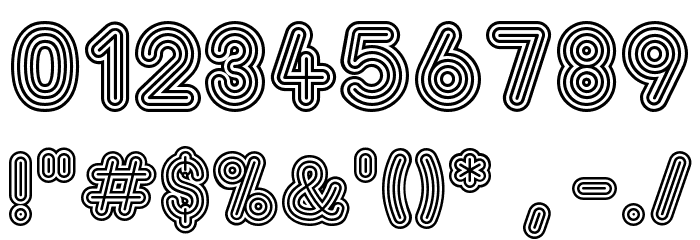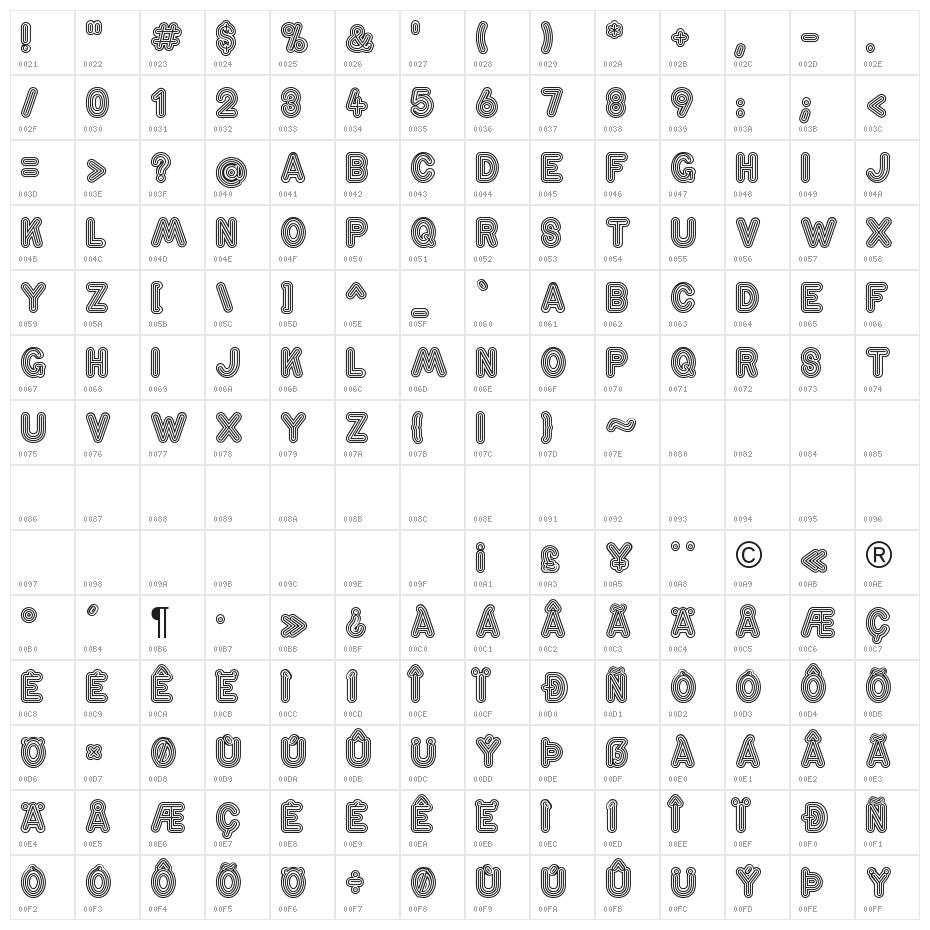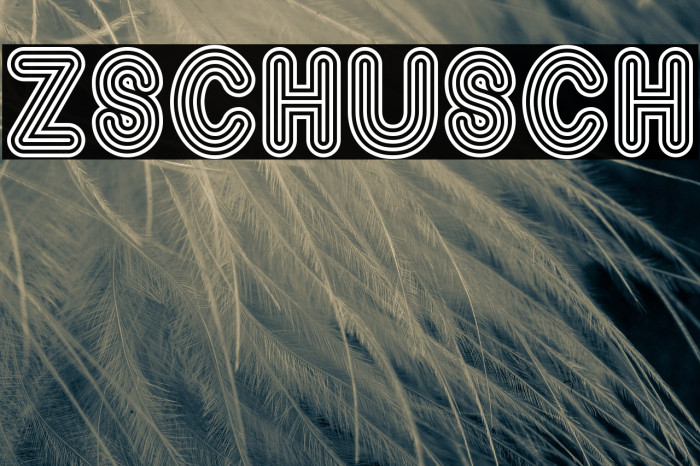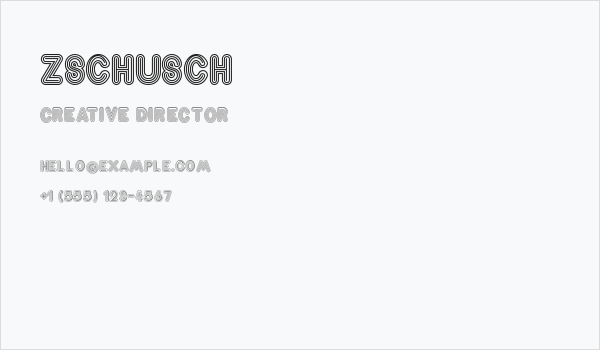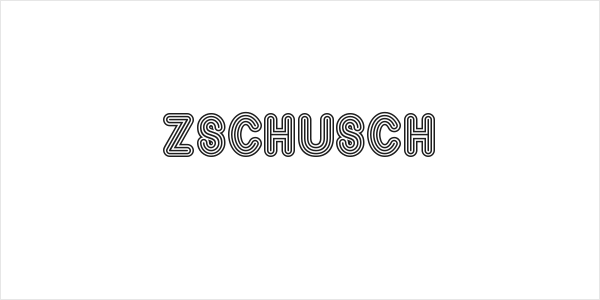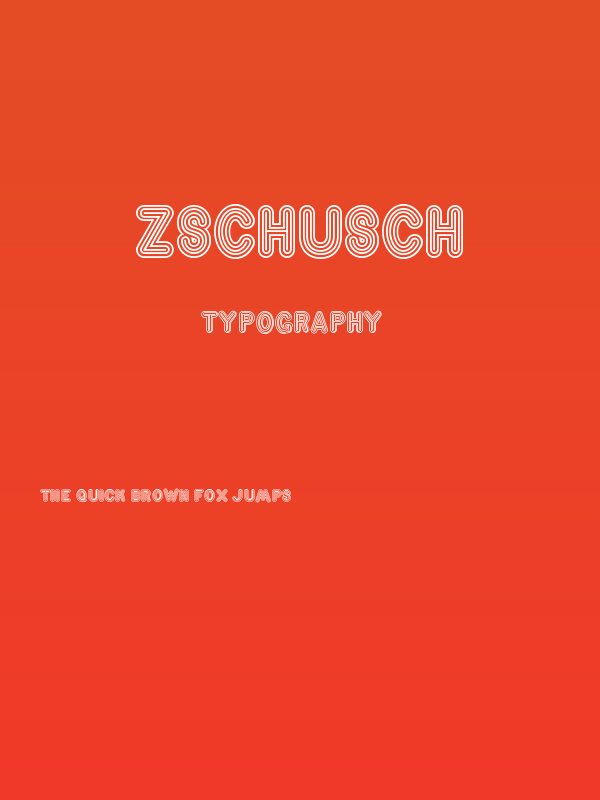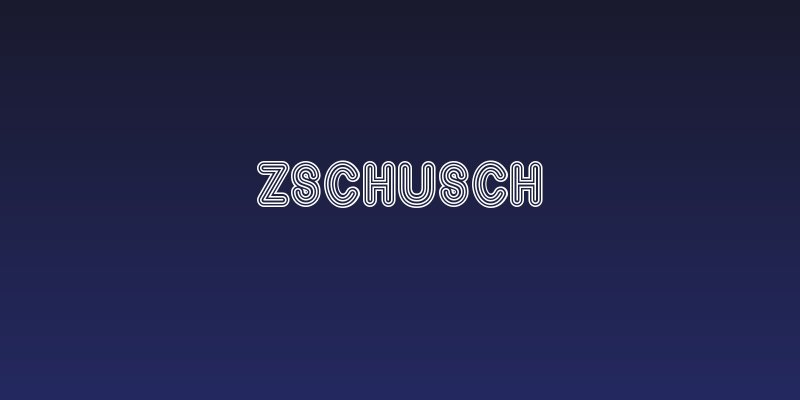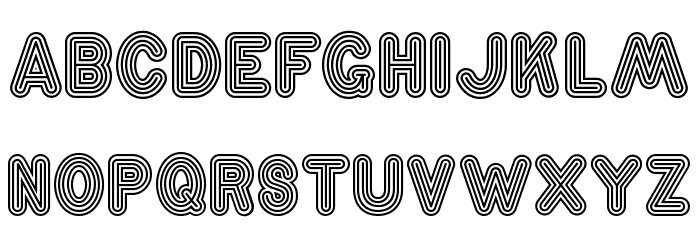
Zschusch Font
Zschusch Description
This font features a bold, decorative style with multiple outlines creating a layered effect. The characters are uppercase and lowercase letters, along with numbers and a variety of special characters. The design is playful and eye-catching, making it suitable for projects that require a standout visual element. The lines are evenly spaced, giving the font a balanced and structured appearance. The overall look is modern and dynamic, with a hint of retro flair due to its outlined, almost three-dimensional effect.
| Proposed Projects | Ideal for posters, logos, headlines, and any design needing a bold, attention-grabbing font. |